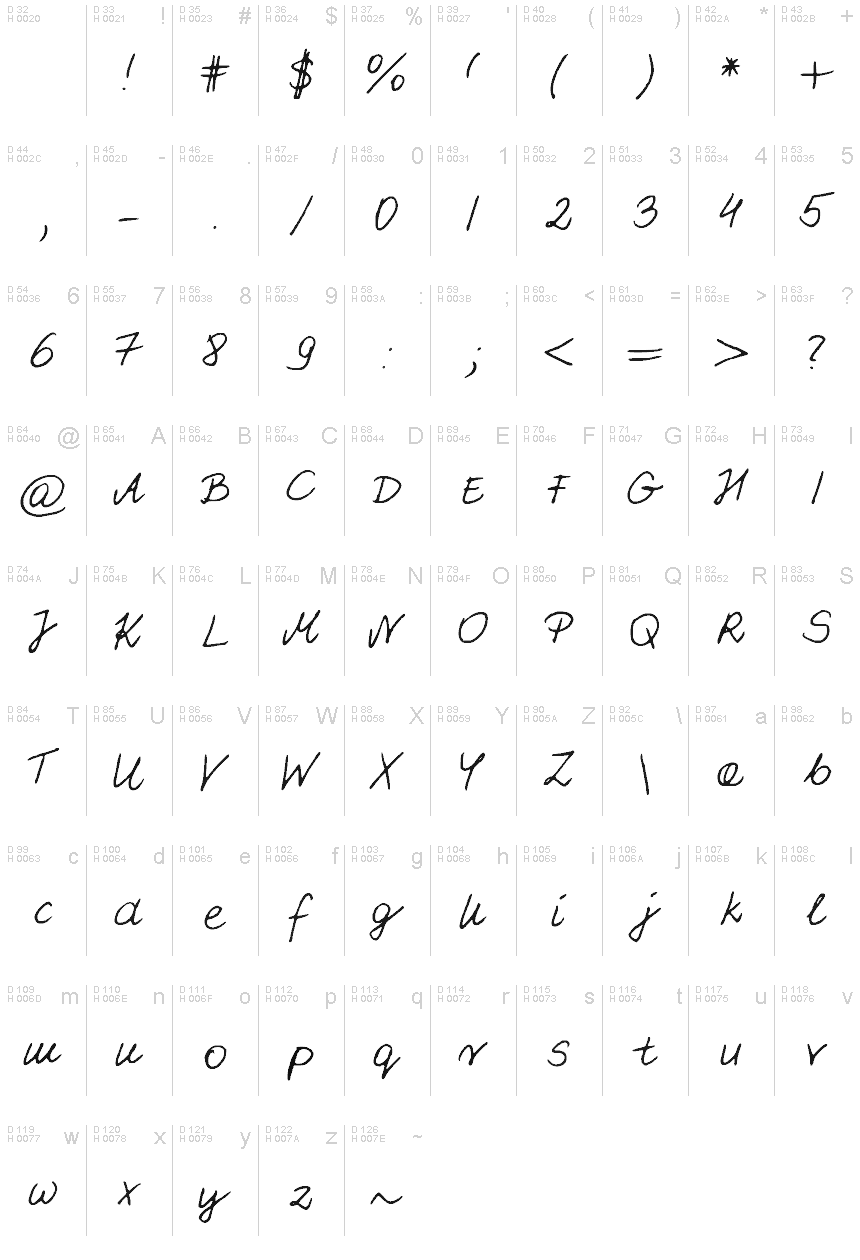
PattiFont
PattiFont, designed by Patrycja A. Sz, radiates a charming personality through its handwritten style that brings an authentic touch to any creative project. This font's fluid and expressive strokes echo the nuances of personal penmanship, making it a delightful choice for designs that demand a bespoke feel. PattiFont's aesthetic appeal lies in its combination of casual elegance and approachable warmth, lending itself beautifully to invitations, branding materials, and personalized stationery.
The individuality of PattiFont is evident in the variation of its characters – each letter appears carefully crafted as if penned by hand. This attention to detail ensures that your projects will carry a unique flair that stands out in the digital age. Whether it’s for web design or print media, PattiFont has the versatility to adapt seamlessly across various platforms while maintaining its distinctive charm.
Embrace PattiFont for an infusion of characterful handwriting into your next design endeavor; let it transform words into visually captivating messages with its unmistakable style and appeal.